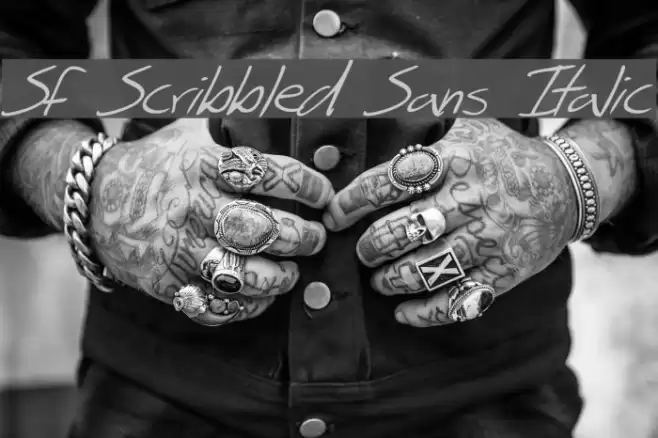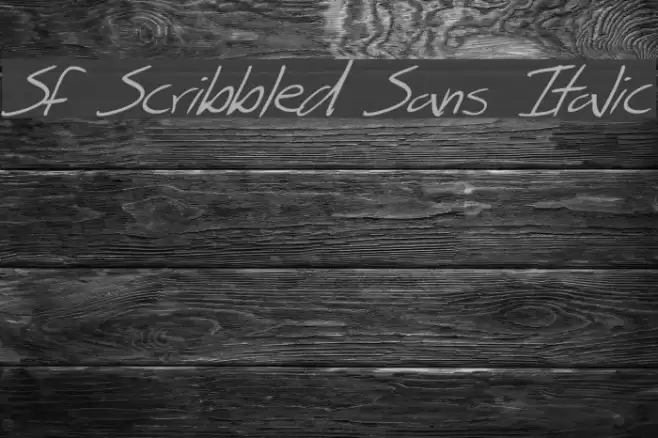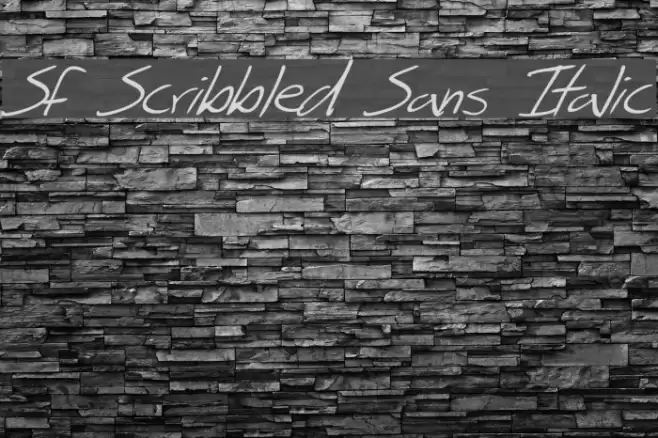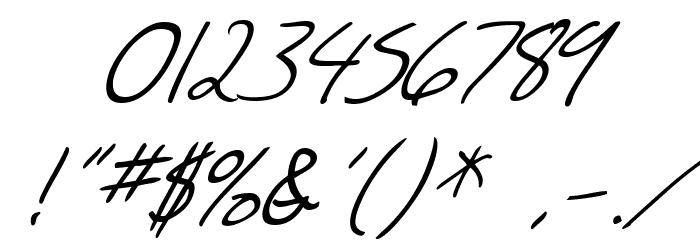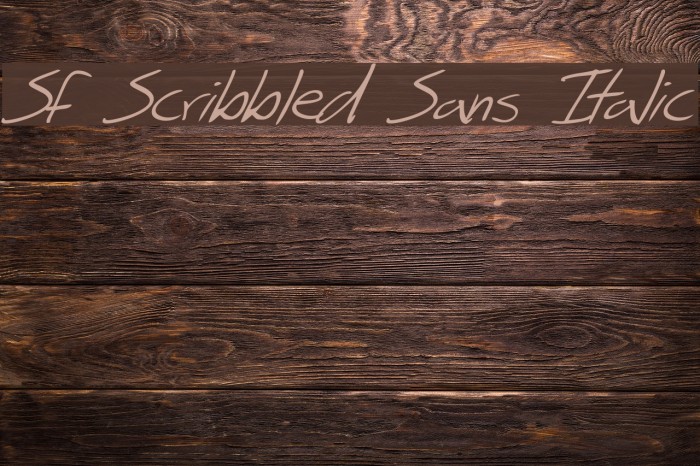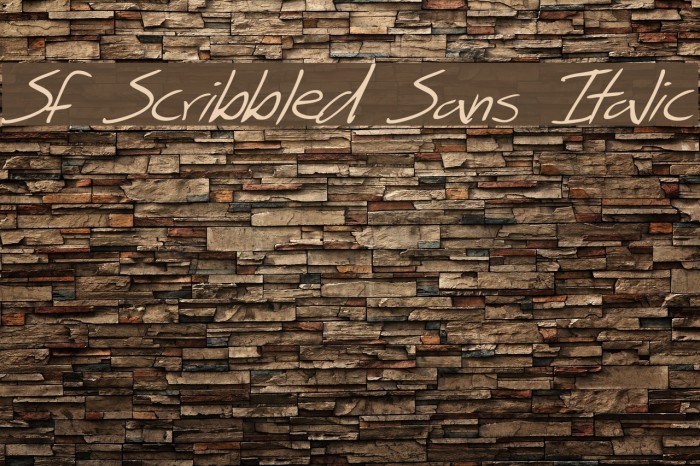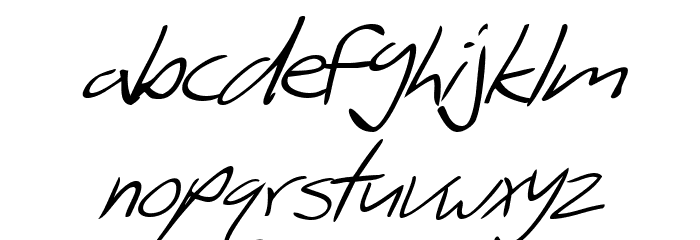
SF Scribbled Sans Italic Font
SF Scribbled Sans Italic Description
This font features a dynamic and energetic handwritten style, characterized by its fluid and slightly irregular strokes. The letters are slanted, giving it an italic appearance, and the overall look is casual yet expressive. The uppercase and lowercase letters maintain a consistent flow, with some letters extending slightly beyond the baseline, adding to its informal charm. Numbers and special characters are crafted with the same lively touch, ensuring a cohesive look across all elements. This font is ideal for projects that require a personal and approachable feel.
A lively, handwritten italic font with fluid strokes and an informal style from Handwritten fonts.
- Proposed Projects: Ideal for personal notes, creative projects, invitations, and branding that seeks a casual and approachable tone.
- Overall Style: Casual
- Use Case: Headlines, Logos, Invitations